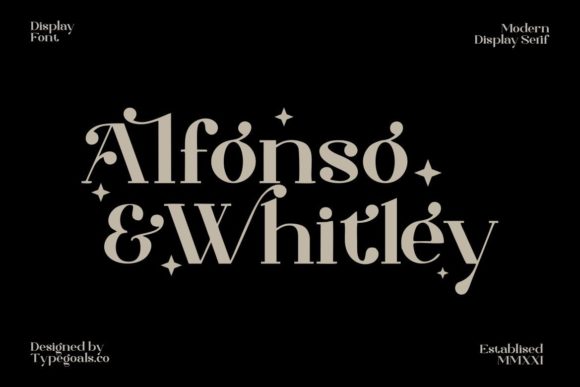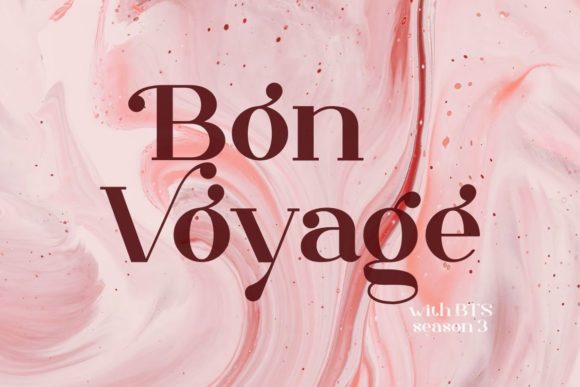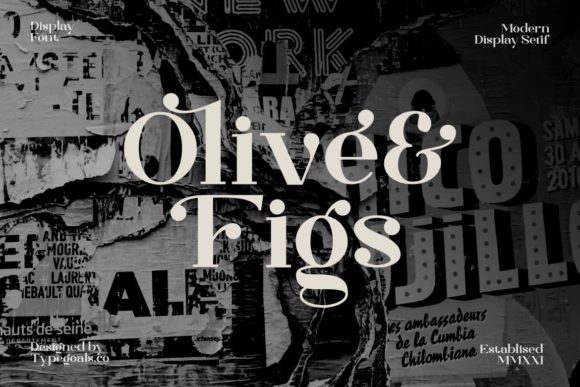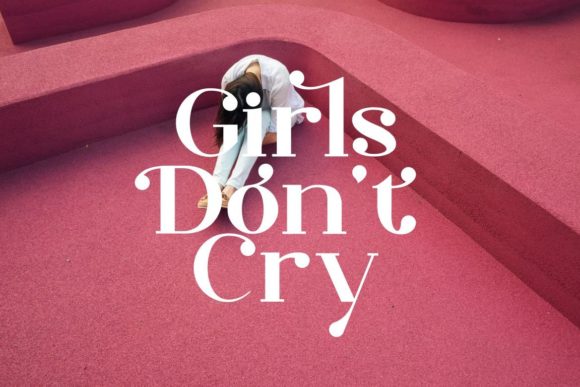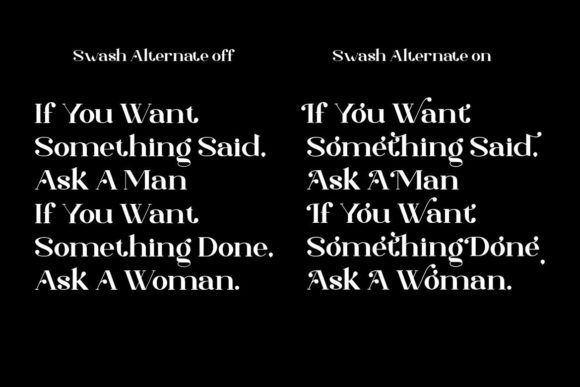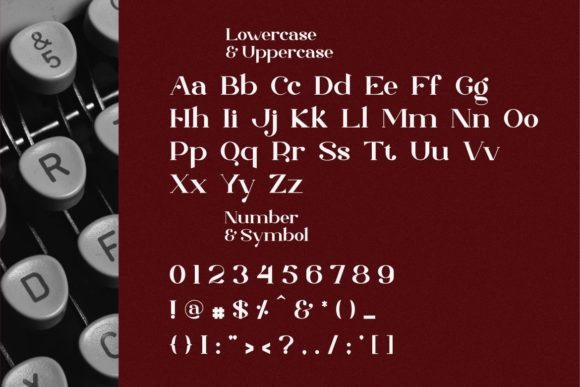
Introduction to Mugi Wara Font
Have you ever stared at a blank page, waiting for inspiration to strike, only to have a single font catch your eye and spark an entire creative project? For designers, finding the perfect font can be the turning point between a mediocre design and a truly exceptional one. And that’s exactly what the Mugi Wara Font offers – a stylish and distinct serif font that can elevate your designs to new heights.
With its incredibly versatile style, the Mugi Wara Font is the perfect design resource for any creative project. Its PUA encoding means you can access all of the glyphs and swashes with ease, giving you the freedom to experiment and push the boundaries of your design. Whether you’re working on a high-quality brochure, creating a logo, or simply need a font for a free download, the Mugi Wara Font is an excellent choice.
Honest Review: Mugi Wara Font
I recently had the chance to work with the Mugi Wara Font, and I must say it’s been a game-changer for my creative project. The font is a high-quality design resource that can add a unique touch to any project.
- ✨ High-quality design with a clear and legible font style
- ✨ Offers a transparent background, making it easy to layer with other design elements
- ⚠️ Limited font weights and styles available
- ⚠️ May not be suitable for all design projects, particularly those requiring a large range of font weights and styles
Overall, I’m very impressed with the Mugi Wara Font. Its unique design and high-quality construction make it a valuable addition to any designer’s toolkit. While it may have some limitations, it’s an excellent choice for designers looking for a free and easy-to-use design resource.
Mugi Wara Font is a free design resource perfect for creative projects that require a unique and high-quality font. This versatile font features a transparent background, making it ideal for overlaying on images or using as a standalone design element.
Getting the Most Out of Mugi Wara Font
To get the most out of Mugi Wara Font, experiment with different font sizes, colors, and transparency levels to achieve the desired effect. You can also combine the font with other design elements to create a unique and eye-catching design.
Mugi Wara Font is perfect for a variety of creative projects, including:
- Graphic design and branding
- Print design and advertising